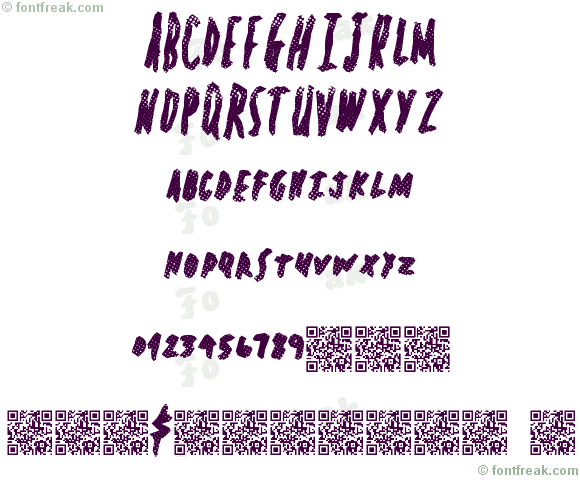
SpringHeadliner
About SpringHeadliner
SpringHeadliner, crafted by Xerographer Fonts, is a captivating display font that embodies a unique blend of artistic flair and playful character. This font features a distinctive handwritten style, characterized by irregular strokes that create a lively, organic appearance. The varying stroke weights and slight contrasts contribute to its dynamic visual appeal, while the open spacing enhances readability, making it an ideal choice for attention-grabbing headlines.
One of the most striking aspects of SpringHeadliner is its decorative elements, which evoke a sense of whimsy and creativity. These features make it particularly suitable for a range of applications. It shines in contexts such as wedding invitations, where its charming style can add a personal touch, and movie posters, where it can convey a sense of intrigue or adventure. Restaurant menus also benefit from its playful aesthetic, drawing diners in with an inviting presentation. Additionally, SpringHeadliner is perfect for promotional materials aimed at a younger audience, helping brands stand out in a crowded marketplace.
This font is designed with graphic designers, small business owners, and content creators in mind. Its versatility ensures that it can be used in various projects, providing a fresh and engaging visual identity. Not only does it cater to creative professionals looking for something unique, but it also serves as an accessible option for anyone seeking to elevate their design work.
What sets SpringHeadliner apart is its ability to blend artistic expression with functionality. The font captures attention without overwhelming the viewer, striking the perfect balance between style and readability. For those interested in enhancing their projects, the SpringHeadliner font free download offers an exciting opportunity to incorporate this distinctive typeface into their designs.